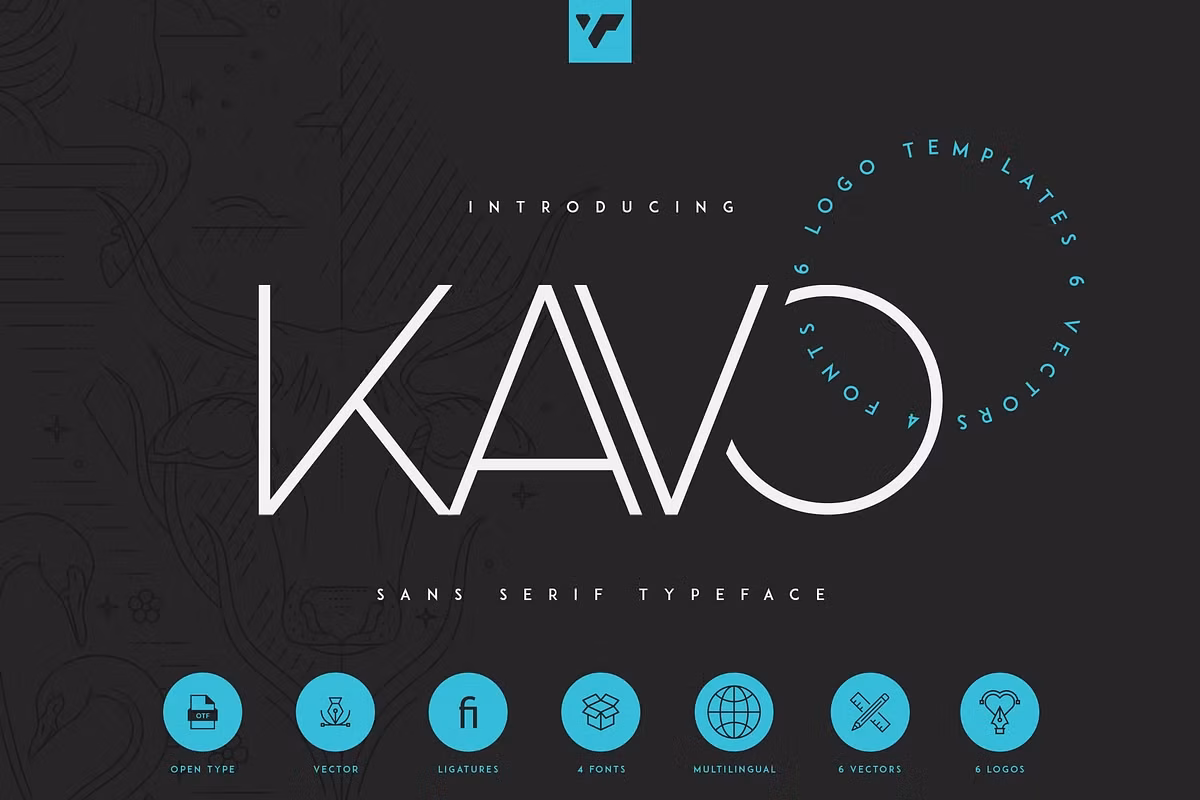
Kavo Sans Serif + 6 Logo Templates Free Download
Kavo Sans Serif + 6 Logo Templates Free Download is the perfect design package for anyone looking to create modern, professional projects. The Kavo Sans Serif font offers a sleek, clean look that’s perfect for branding, logos, websites, and more. Paired with 6 ready-to-use logo templates, this bundle makes it easy to create stylish and polished designs in no time.